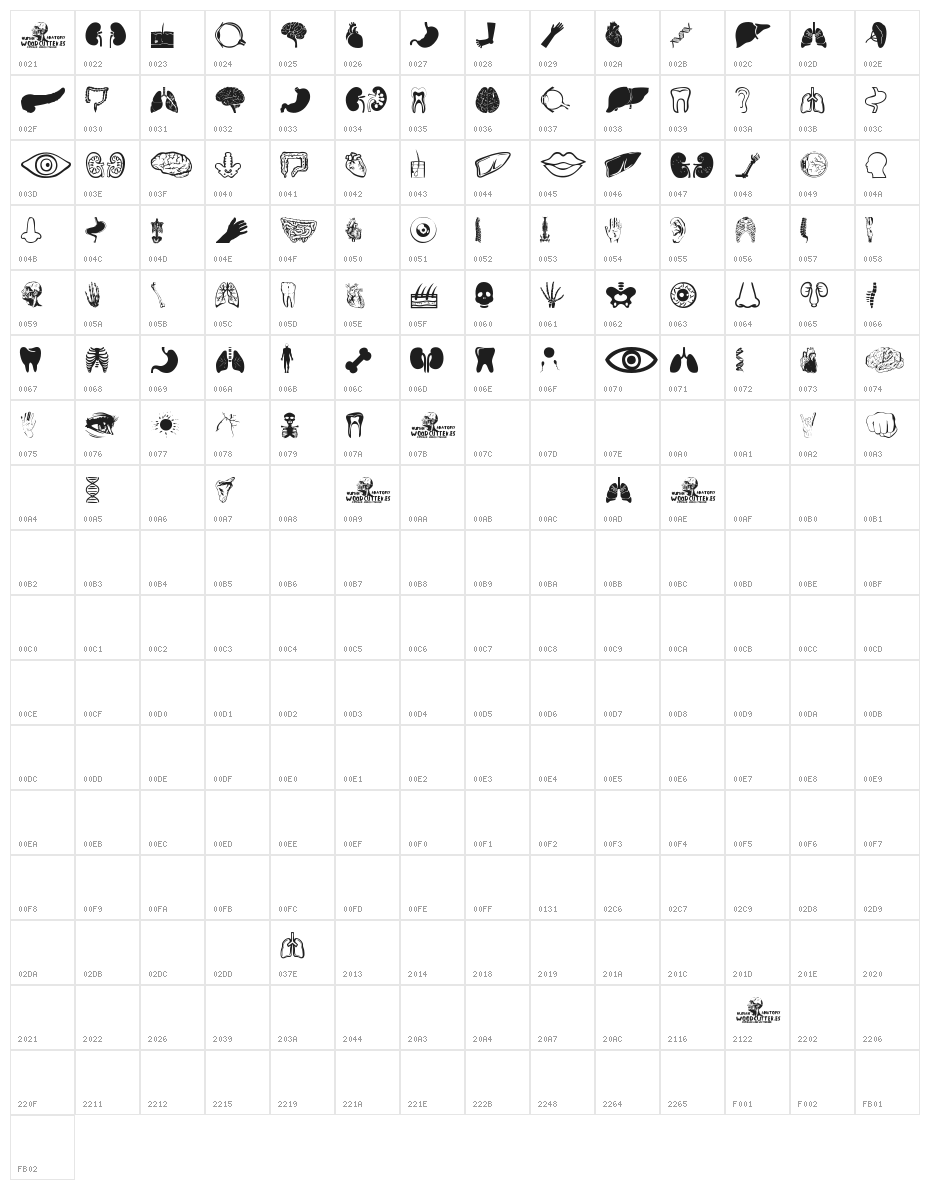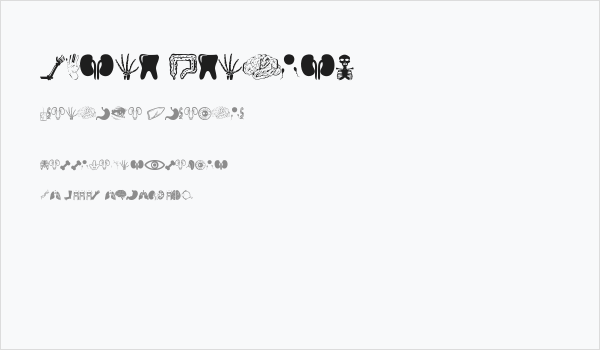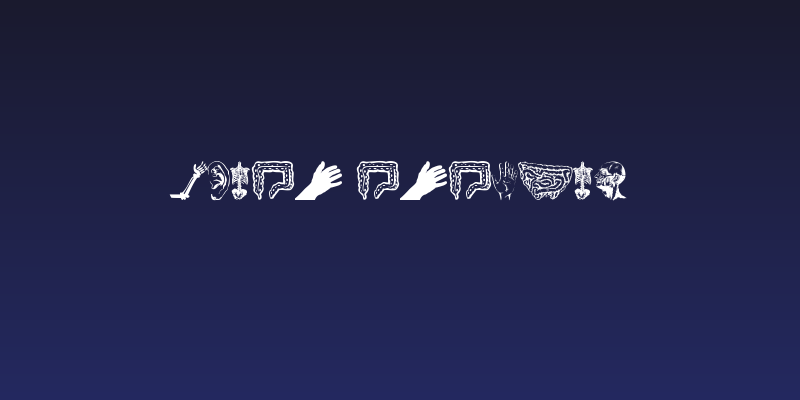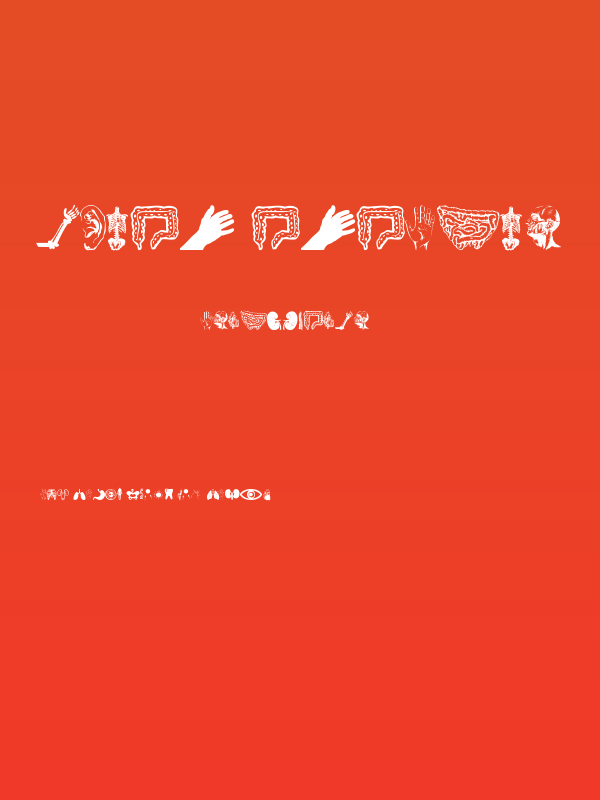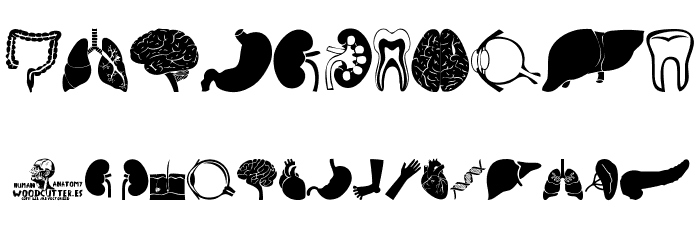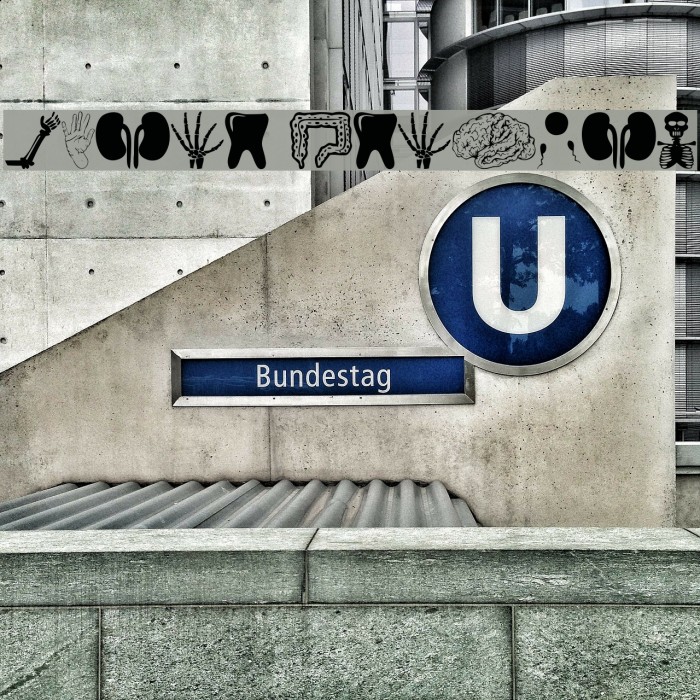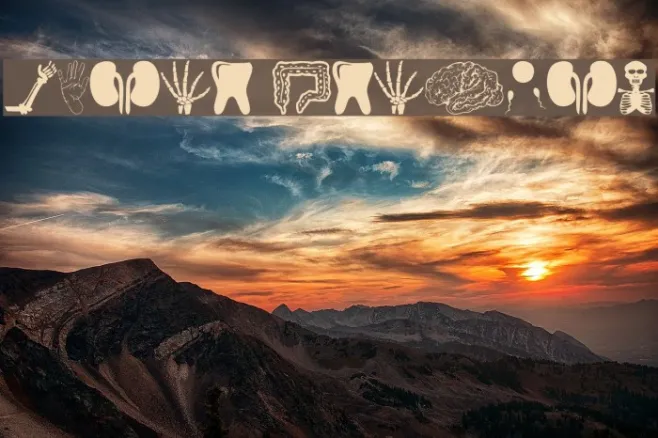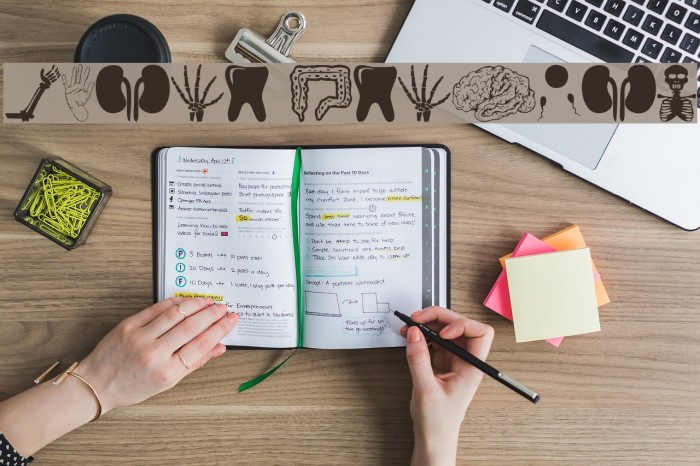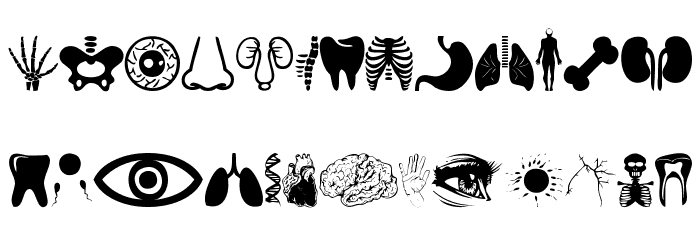
Human Anatomy Font
Human Anatomy Description
This font is a creative and illustrative representation of human anatomy, with each character designed to resemble a different anatomical feature or organ. The characters are highly detailed, showcasing elements like bones, organs, and other body parts in a stylized manner. The design is bold and visually striking, making it suitable for projects that require a unique and thematic approach. The font's intricate details and artistic style make it stand out, offering a distinctive look that is both educational and decorative.
| Use Case | Logos, Posters, Educational Materials |
| Proposed Projects | Ideal for educational materials, medical-themed designs, posters, and creative projects that require a unique anatomical theme. |